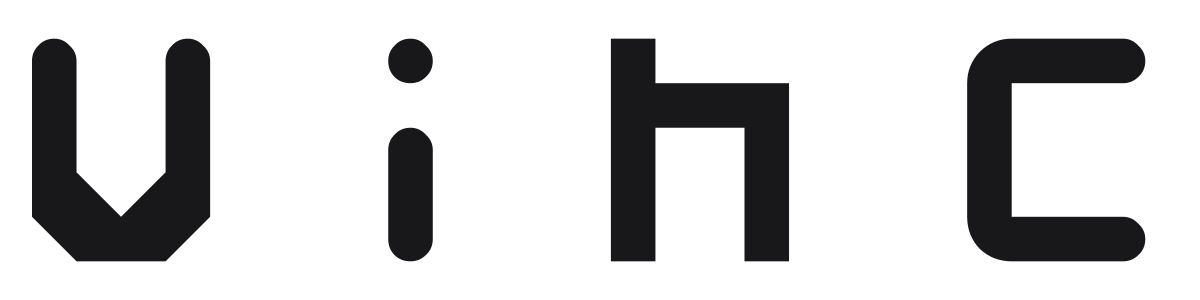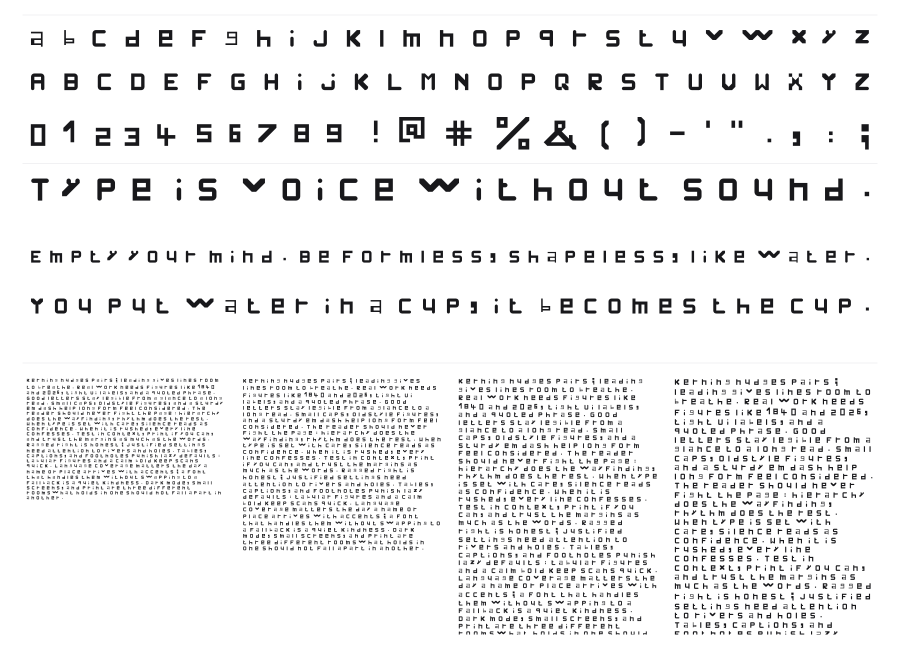
Vinc
Vinc is a modular geometric typeface built entirely from cropped rectangular strokes arranged on a strict grid. Each character reads like a fragment of a larger system, with strokes ending abruptly to suggest letters rather than spell them out. The result is an industrial, almost cryptographic aesthetic that works best at large sizes where the construction logic becomes visible.